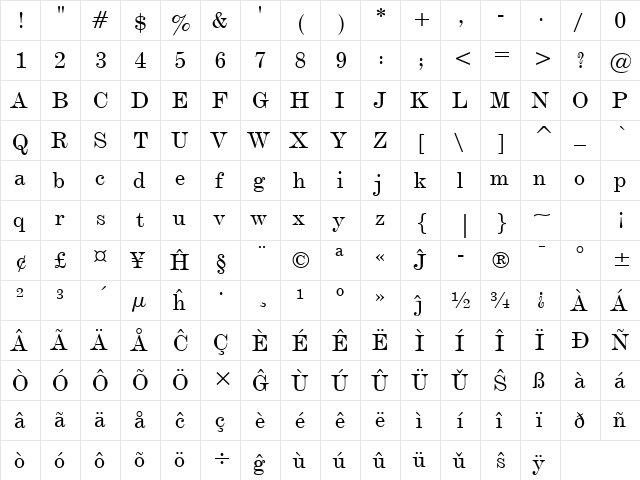
DeVinne Txt BT Eo Regular Font Preview
DeVinne Txt BT Eo Regular
Design Context for DeVinne Txt BT Eo Typeface
DeVinne Txt BT Eo takes a measured approach to typography — its balanced proportions and neutral character make it a reliable workhorse for both digital and print work.